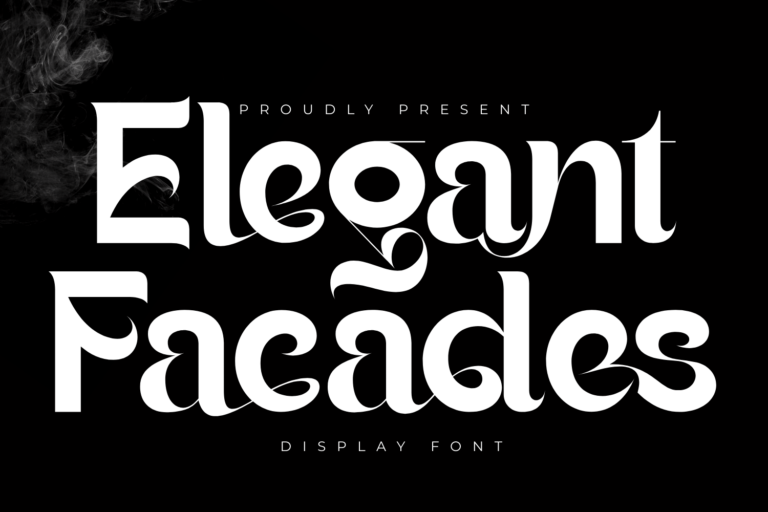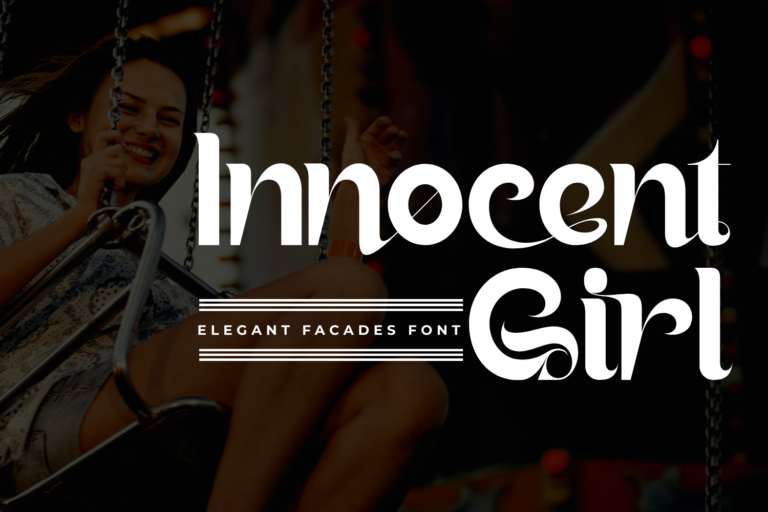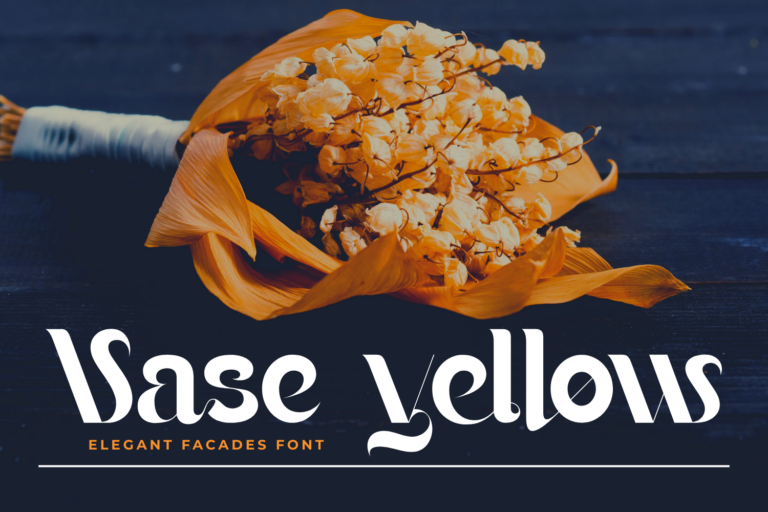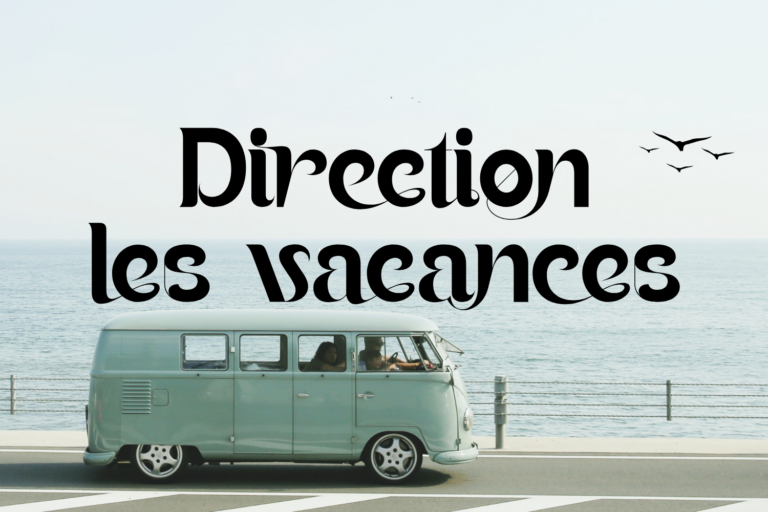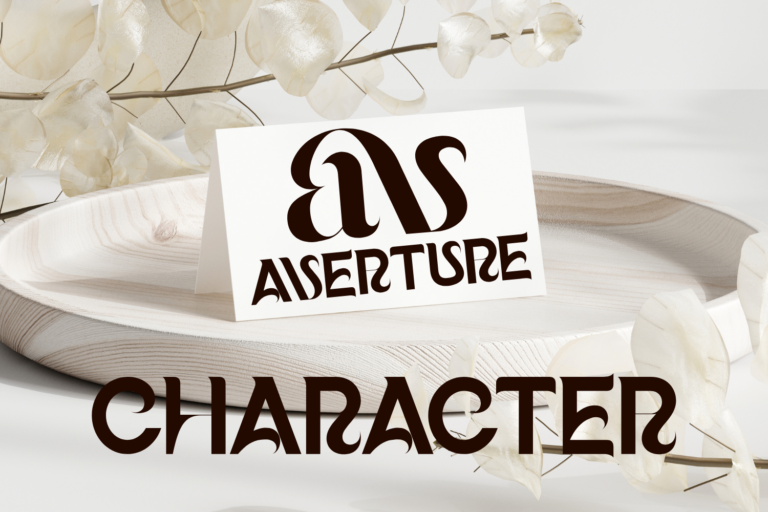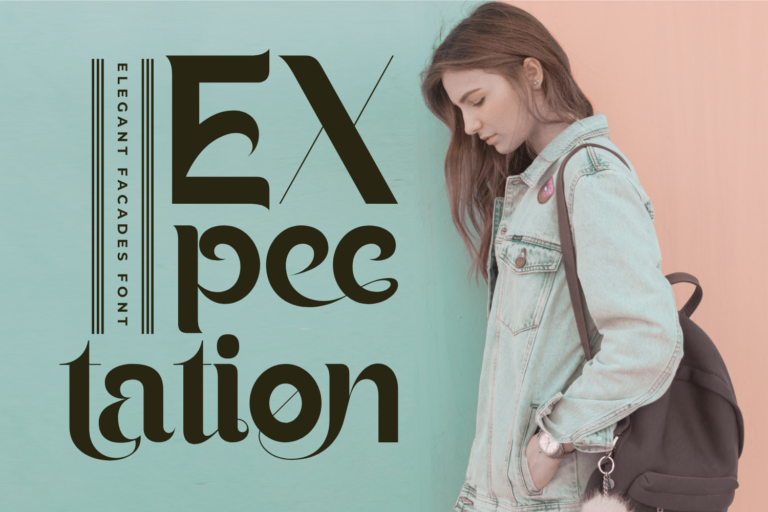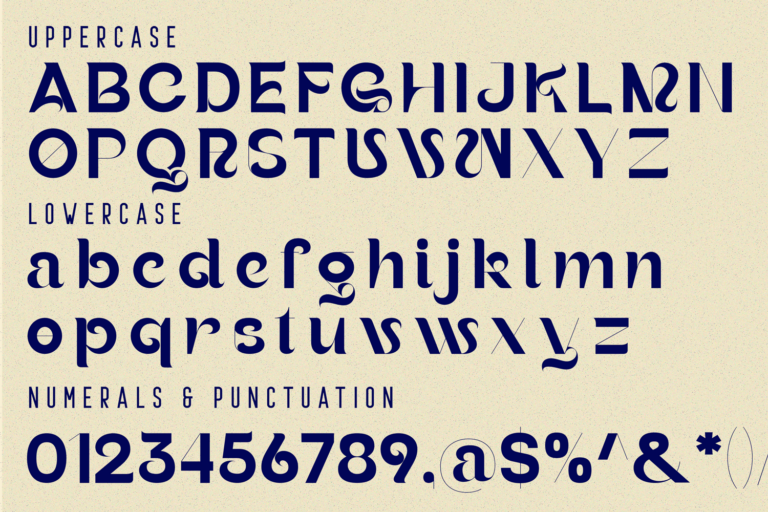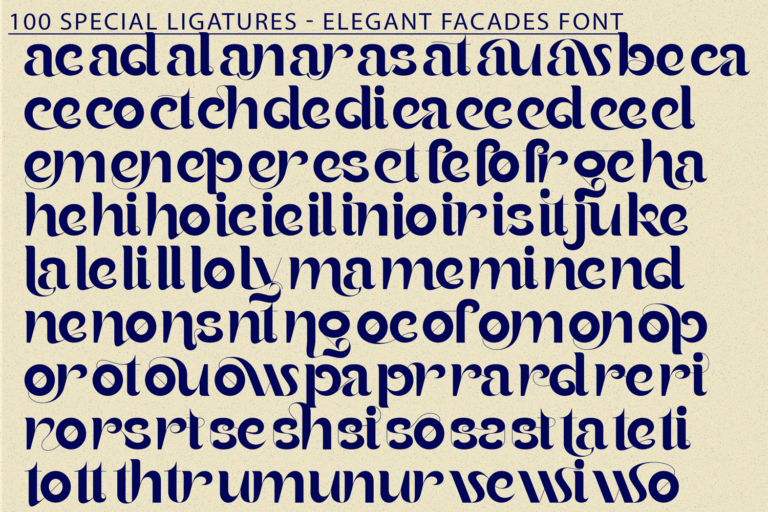
Elegant Facades – Modern Sans Font – Elegant Modern sans-serif Display Font, a high-contrast modern sans-serif font that blends classic elegance with contemporary flair. Designed with graceful curves, sweeping terminals, and stylish swashes, this typeface adds a sophisticated touch to any visual identity. Whether you’re creating a luxury brand logo, an editorial headline, or stylish packaging, Elegant Facades offers a refined typographic voice that’s both modern and timeless.
• Uppercase & Lowercase Letters
• ~100 Elegant Ligatures & Stylistic Alternates
• Multilingual Accented Characters
ac ad al an ar as at au av be ca ce ch co ct de di ea ec ed ee el em en ep er es et fe fo fr ge ha he hi ho ie ic il in io ir is it ju ke la le li ll lo ly ma me mi nc nd ne ng no nt ns oc of om on oo op or ot ou ow pa pr ra rd re ri ro rs rt se sh si so ss st ta te th ti to tr tt um un ur ve wi wo
Elegant Facades – Modern Sans Font